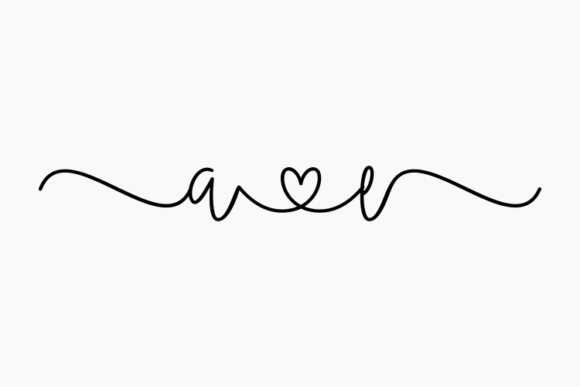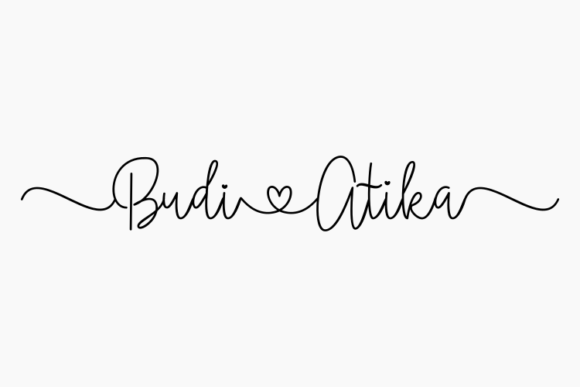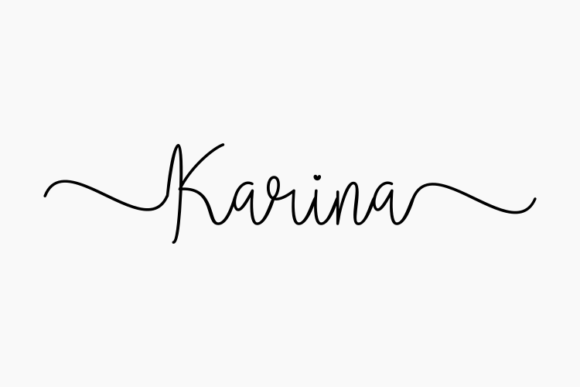
Introduction to Moonlove Font
There’s nothing quite like the feeling of inspiration striking in the middle of a creative project. You’re brainstorming ideas, sketching out concepts, and suddenly, the perfect font pops into your head. It’s the perfect combination of style and sophistication, and you can almost see your design coming together in your mind’s eye. For many designers, this moment is the key to unlocking their creative potential.
One font that can bring this magic to life is the Moonlove Font. This beautiful, handwritten font is a design resource like no other, offering a unique blend of natural charm and romantic flair. With its varying baseline, smooth lines, gorgeous glyphs, and stunning alternates, Moonlove Font is the perfect choice for designers looking to add a touch of elegance to their creative projects.
Whether you’re working on a free download or a high-quality commercial project, Moonlove Font is sure to be a valuable addition to your design toolkit. Its transparent background makes it easy to layer and combine with other design elements, and its high-quality design ensures that it will look great on any background. With Moonlove Font, the possibilities are endless, and your creative projects will thank you.
Key Features of Moonlove Font
- Unique, Hand-Drawn Design: The Moonlove Font is a one-of-a-kind, hand-drawn design perfect for creative projects requiring a personal touch.
Honest Review: Moonlove Font
As a designer, I’m always on the lookout for high-quality design resources that can elevate my creative projects. The Moonlove Font has been a recent discovery, and I’m excited to share my thoughts on it.
- ✨ Beautiful, delicate handwriting style that’s perfect for romantic or whimsical projects.
- ✨ High-quality font files with transparent background options for easy editing.
- ⚠️ Limited font sizes and styles available (although this may be a deliberate design choice).
Overall, the Moonlove Font is a lovely addition to any design resource library. While it may have some limitations, its unique style and high-quality files make it a great choice for creative projects. With a free download and transparent background options, it’s an excellent resource to have in your toolkit.
Designing with Moonlove Font
To get the most out of Moonlove Font, experiment with different font sizes, colors, and combinations. You can also use it in conjunction with other design elements, such as images and graphics.
Moonlove Font is perfect for a variety of use cases, including:
- Branding and logo design
- Social media graphics and advertising
- Presentations and reports